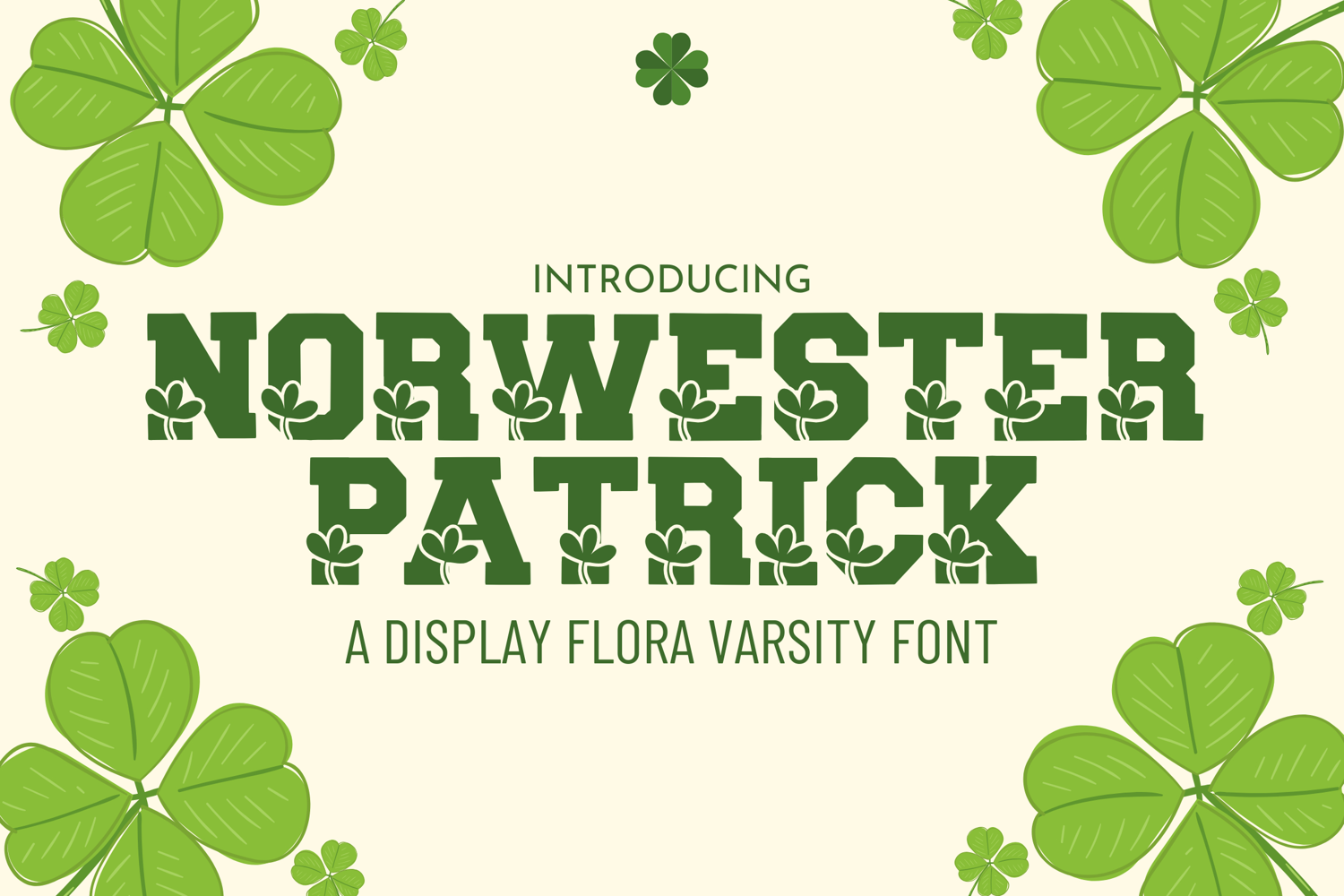
Norwester Patrick - Varsity Style Festive Font
Norwester Patrick
Celebrate with style using Norwester Patrick, a bold varsity-inspired display font with a festive twist. Designed with the same strong, condensed block lettering as the original Norwester, this version adds a playful charm perfect for St. Patrick’s Day designs, Irish-themed branding, party flyers, and seasonal crafts.
Its bold all-caps style ensures maximum readability while keeping a clean and sporty vibe, making it ideal for both modern designs and retro varsity looks with a festive edge.
✨ Features:
• All-Caps Varsity Typeface with festive styling
• Condensed block letterforms for bold impact
• Includes uppercase, numbers, punctuation & multilingual support
🎯 Perfect For:
• St. Patrick’s Day posters & party flyers
• Irish pub branding & signage
• Seasonal apparel (t-shirts, hoodies, mugs)
• Sports or varsity-style Irish team logos
• Social media posts & festive craft projects